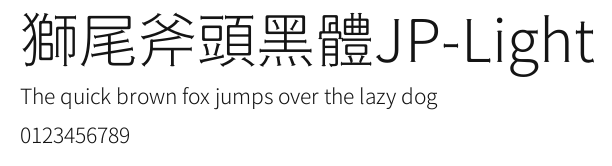
獅尾斧頭黑體JP-Light Preview
• Font Name: 獅尾斧頭黑體JP-Light
• Font Style: Light
• Full Font Name: 獅尾斧頭黑體JP-Light
• PostScript Name: SweiAxSansCJKjp-Light
About 獅尾斧頭黑體JP-Light.ttf
獅尾斧頭黑體JP-Light.ttf is a modern, elegant sans-serif font designed for ultimate readability and visual harmony. Perfect for branding, headlines, web design, and print materials.